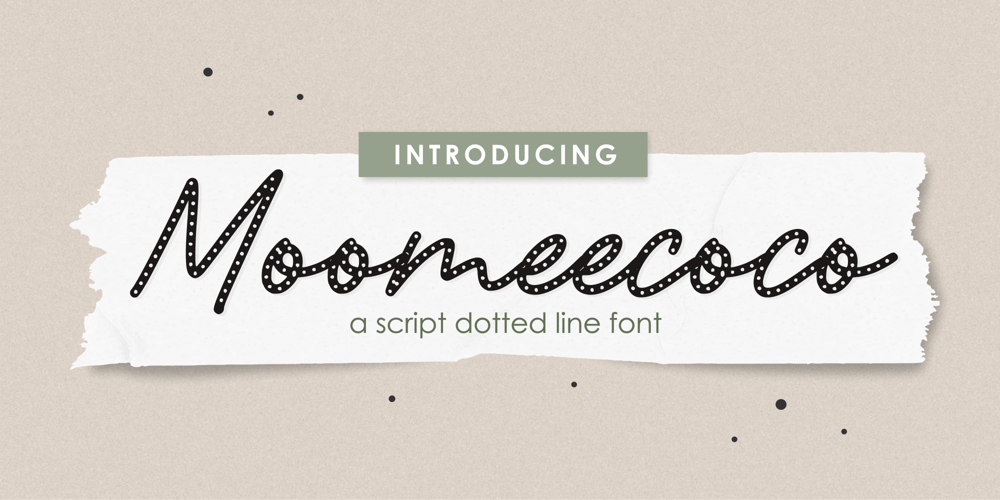
Moomeecoco Font Family was designed by Fachrizal Yusuf and published by Allouse Studio. Moomeecoco contains 1 styles and family package options. Proudly Presenting, Moomeecoco A Script Dotted Line FontMoomeecoco is perfect for any titles, logo, product packaging, branding project, megazine, social media, wedding, or just used to express words above the background.Moomeecoco also come with Multi-Lingual Support.Enjoy the font, feel free to comment or feedback, send me PM or email. Thank You!